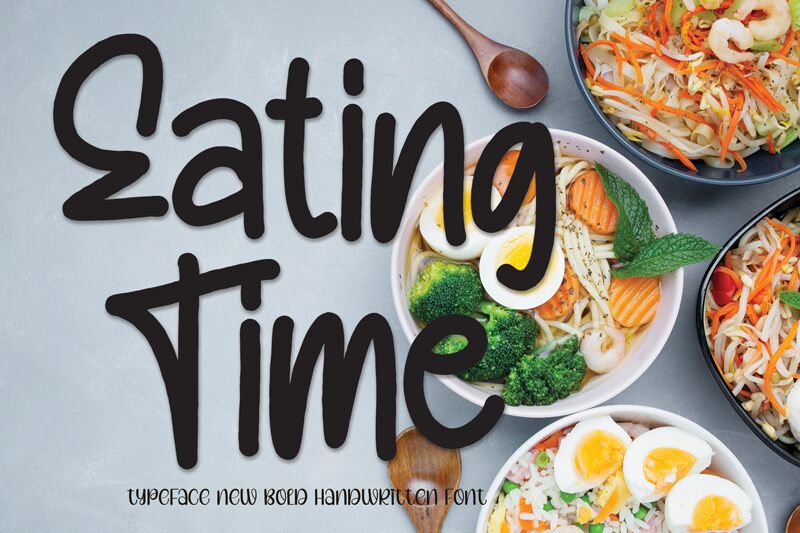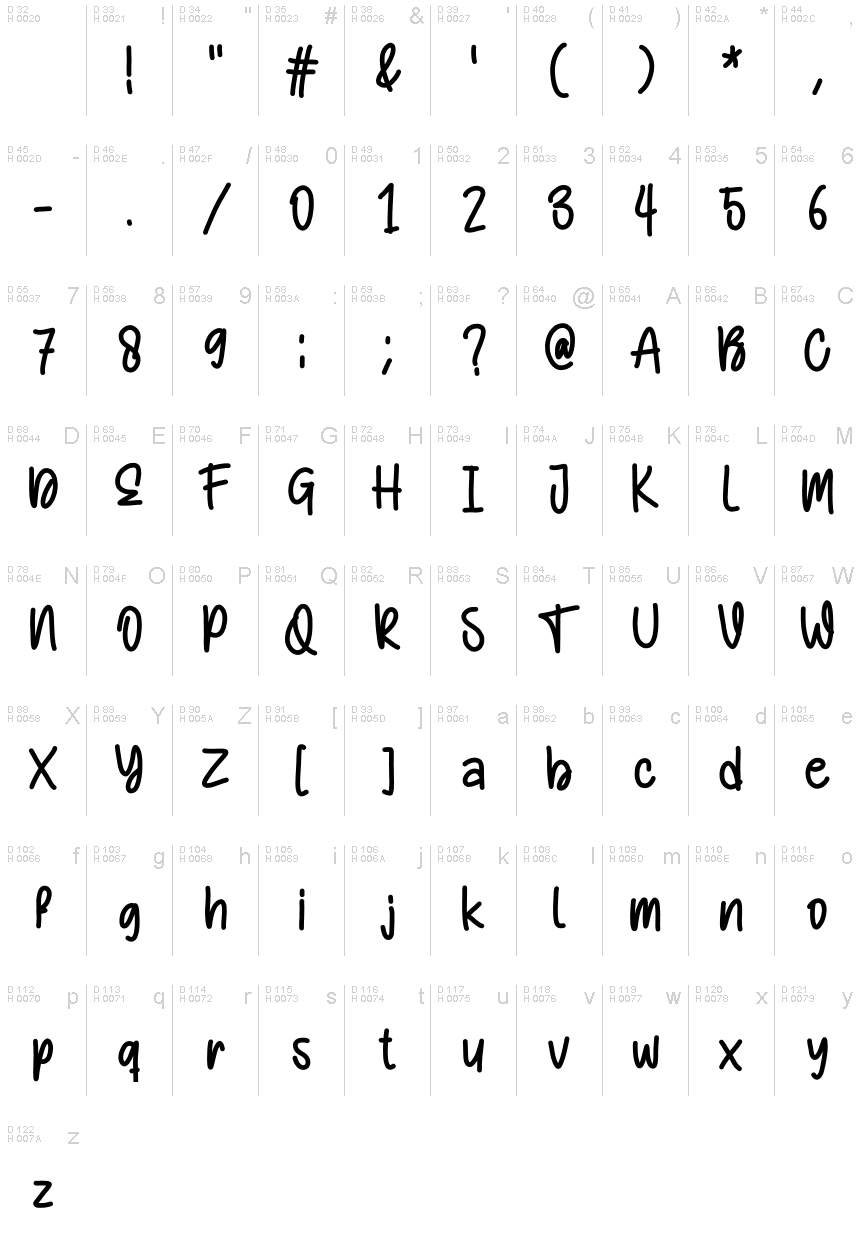
Eating Time
Eating Time is a charming, handwritten display font created by the talented designer Andi Moz. This whimsical typeface exudes a sweet, friendly vibe, with organic strokes and a casual, playful aesthetic. The font's natural flow and expressive characters effortlessly convey a sense of warmth and approachability, making it a delightful choice for a variety of design projects.
Eating Time's versatility shines through, making it a suitable option for wedding invitations, greeting cards, and other designs requiring a touch of playfulness. Its unique character shapes and fluid movement lend themselves beautifully to creative applications, where a personal, handcrafted feel is desired. Whether you're crafting a heartfelt message or seeking to add a playful accent to your designs, Eating Time is a font that will captivate and delight.